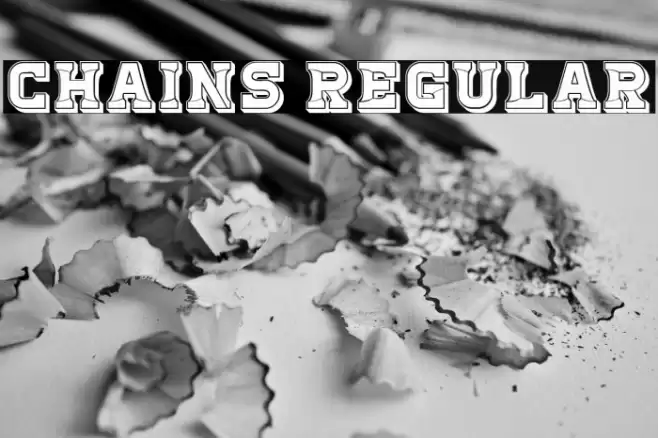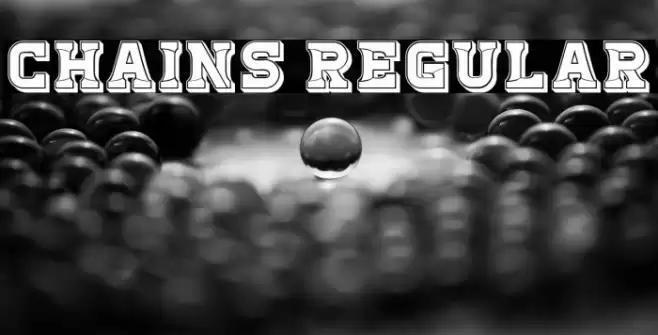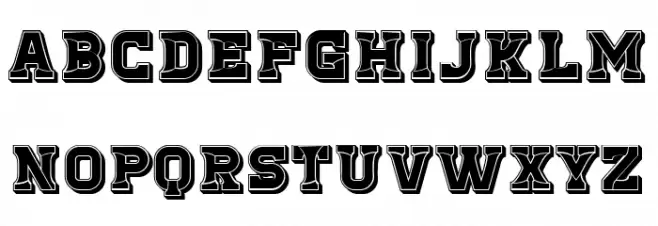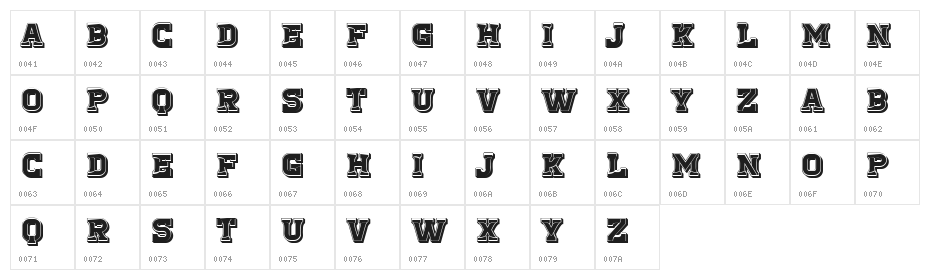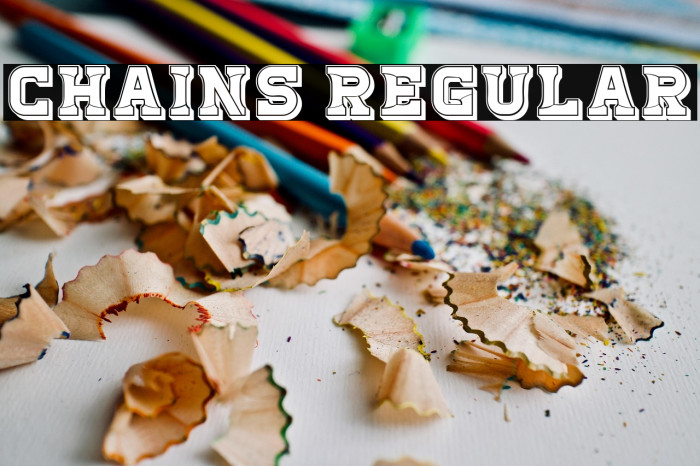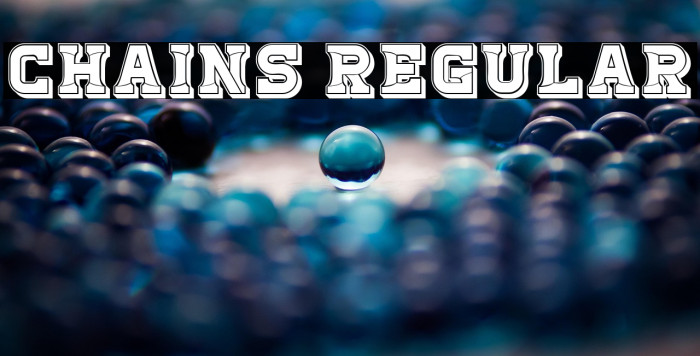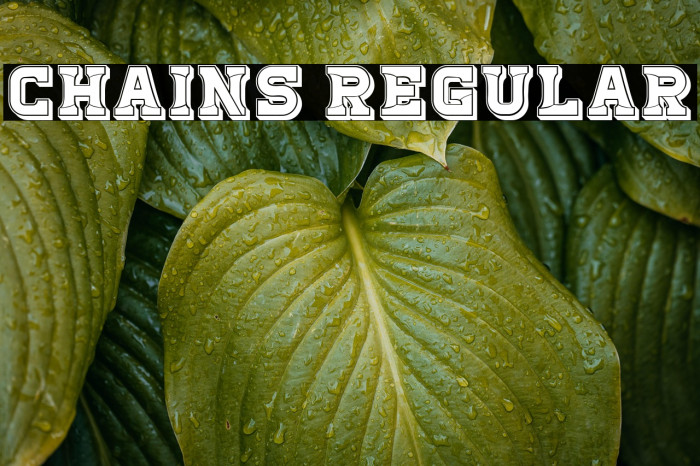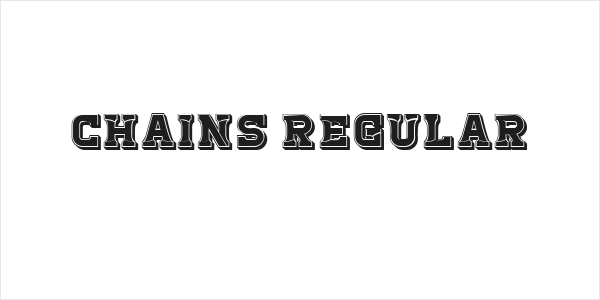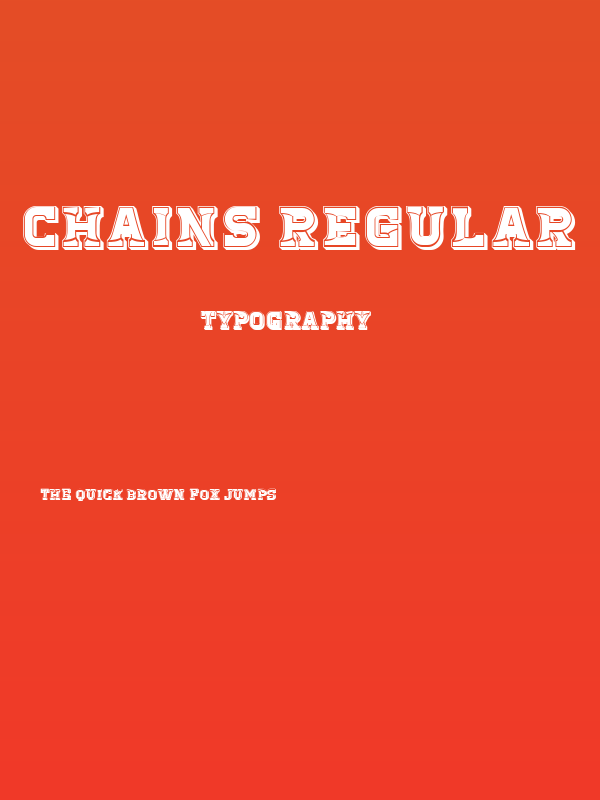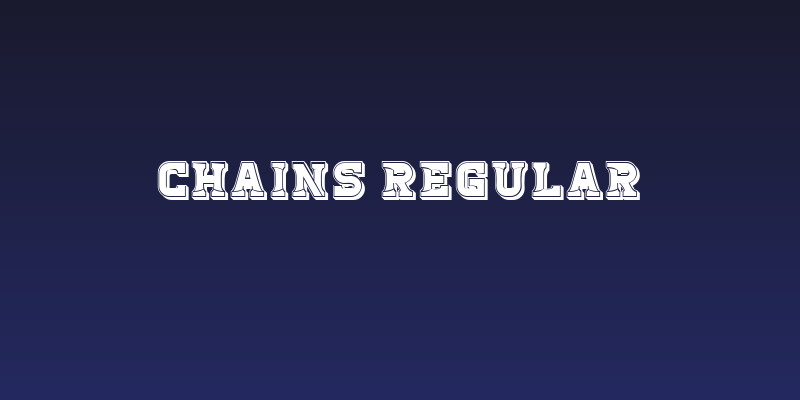
Chains Regular Font
Chains Regular Description
This font features a bold, decorative style with a strong presence. Each character is outlined with a thick, black shadow that gives a three-dimensional effect, enhancing its visual impact. The letters are uppercase, with a consistent width and height, creating a uniform appearance. The design incorporates sharp edges and angular cuts, adding a modern twist to the traditional block letter style. The font's unique characteristics make it stand out, suitable for eye-catching designs. Its boldness and decorative elements suggest a use in projects where attention-grabbing text is essential.
A bold, decorative font with a three-dimensional shadow effect from Uncategorized fonts.
- Proposed Projects: Ideal for posters, headlines, logos, and any design requiring a strong visual impact.
- Overall Style: Modern, Decorative